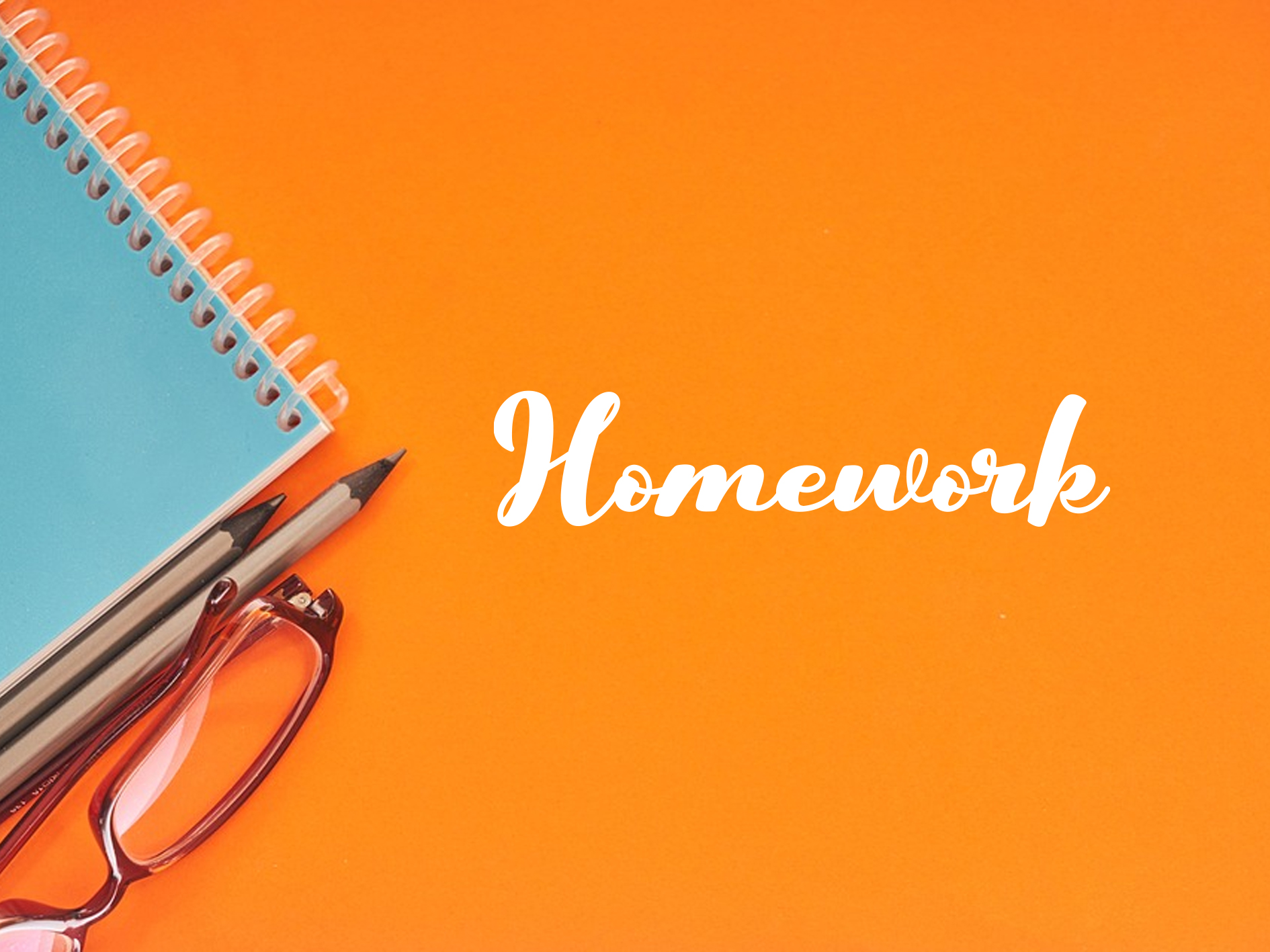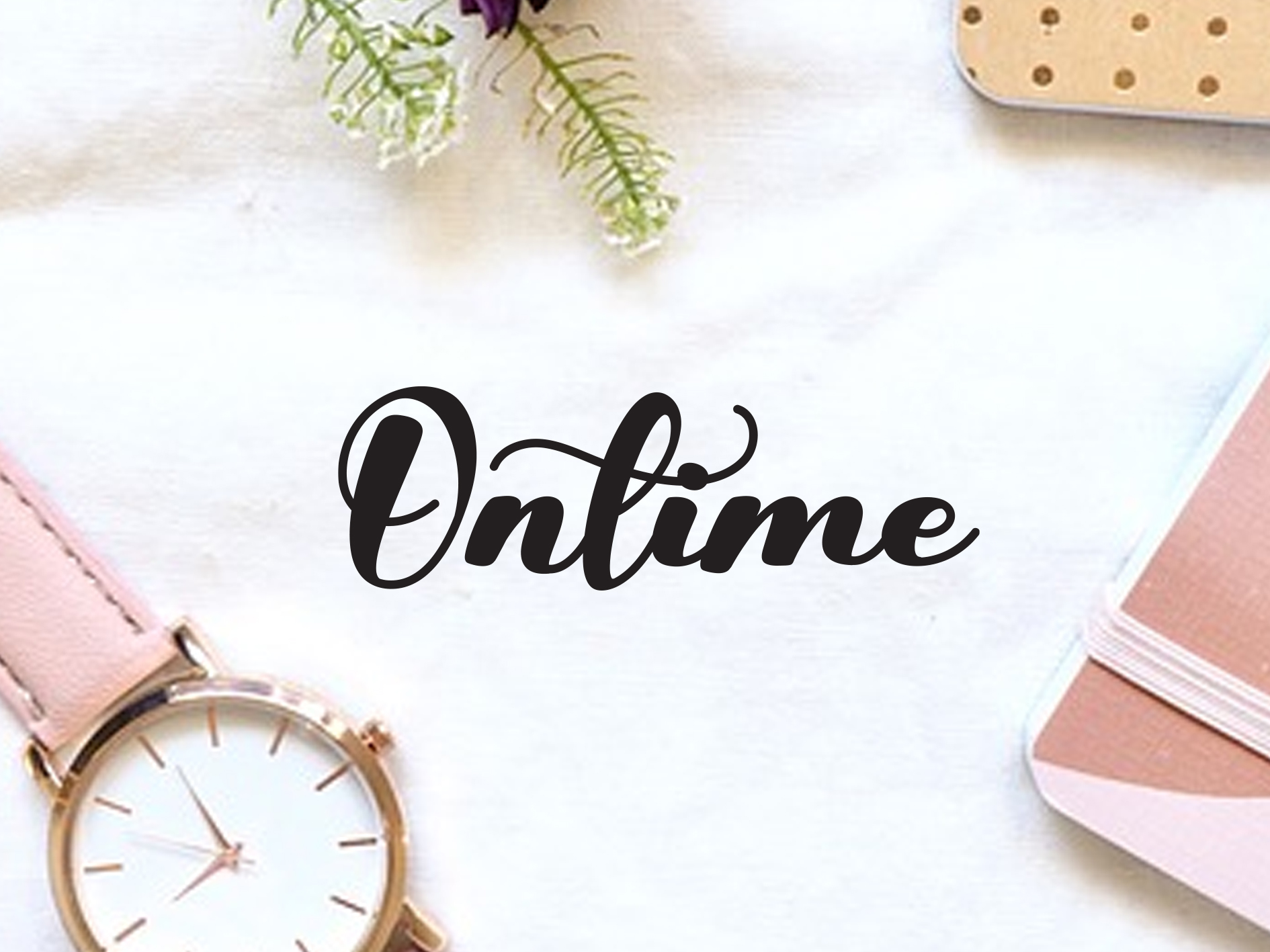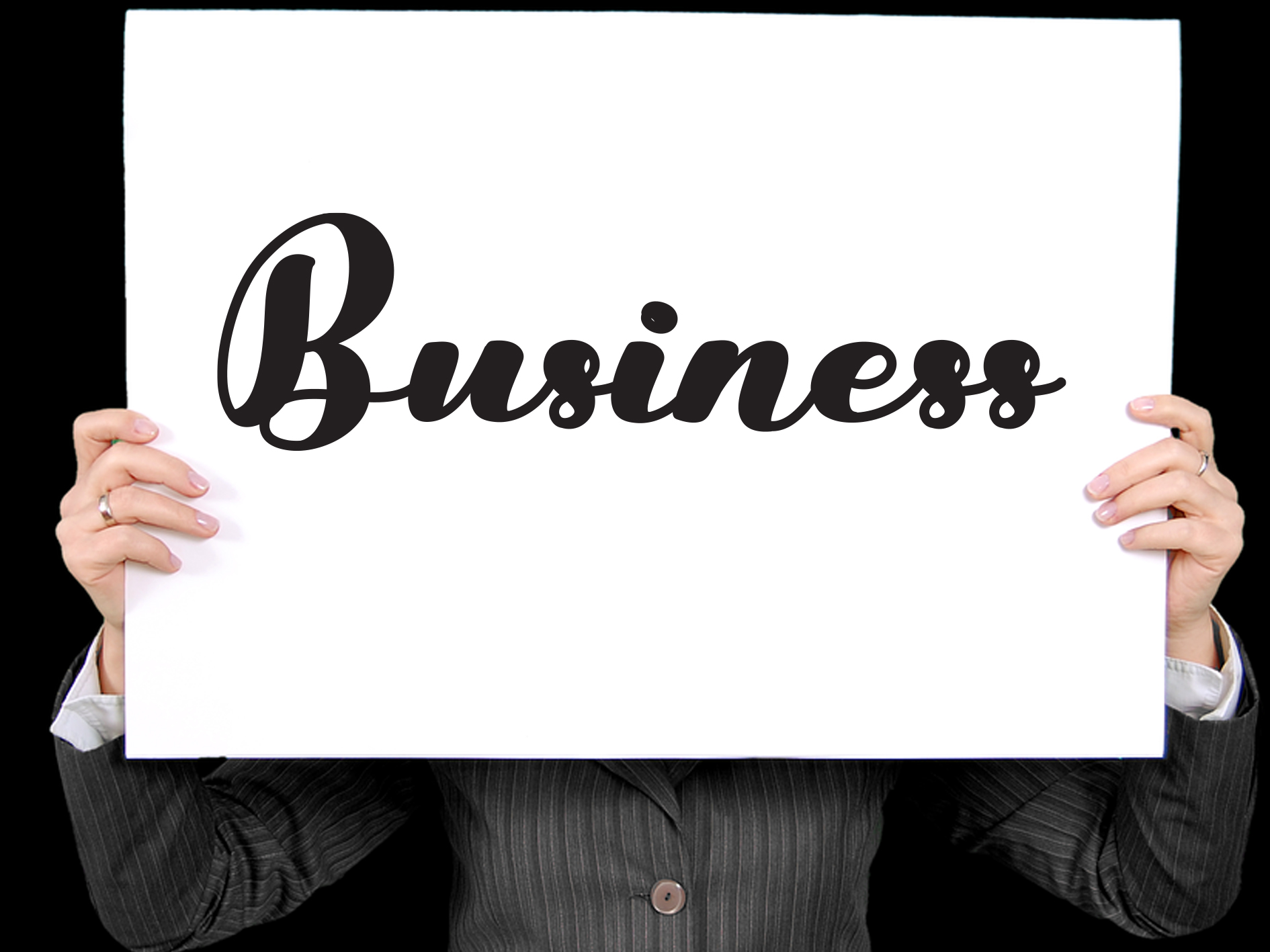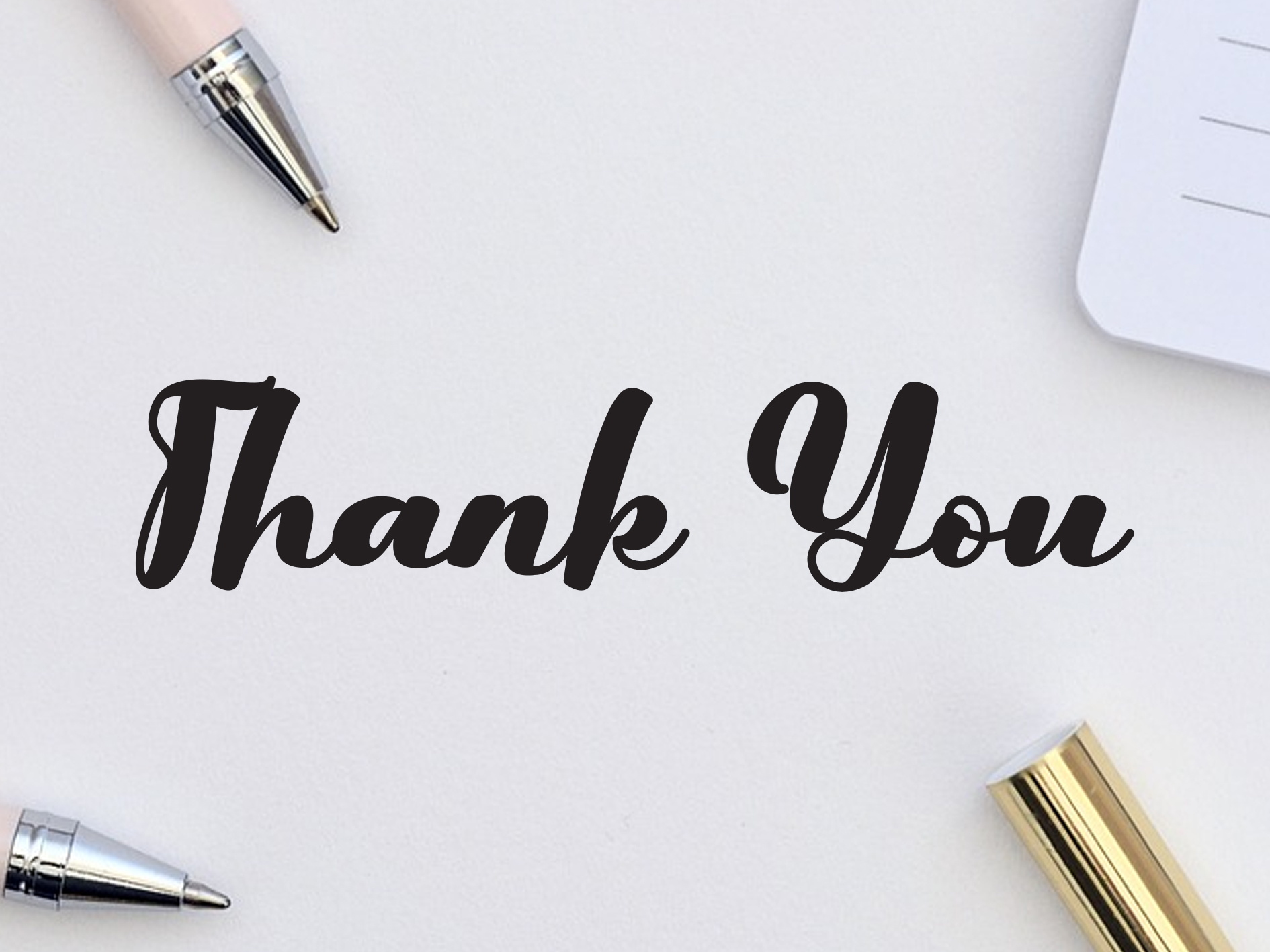
Vintage Script Typeface
It’s a delicate handwritten font that is carefully crafted for a cool and unique design. This font can be used to write letters, invitations, food products, titles, and more.